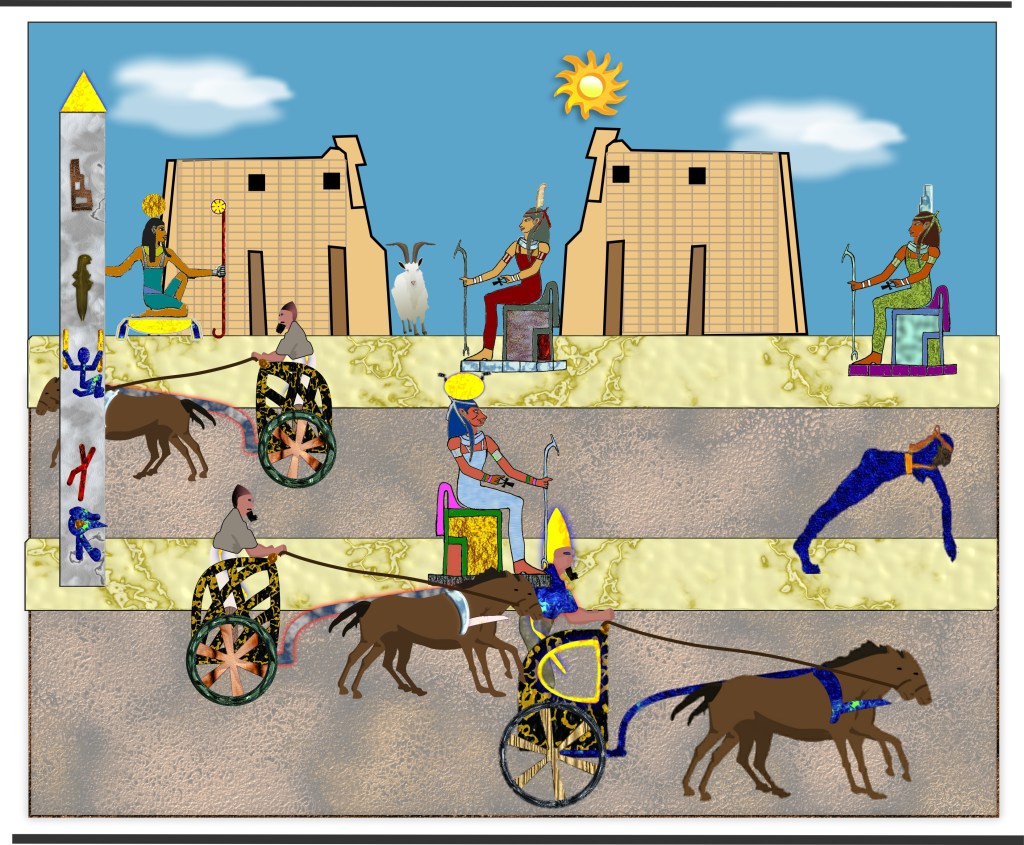
Horses, Gods and Scribes
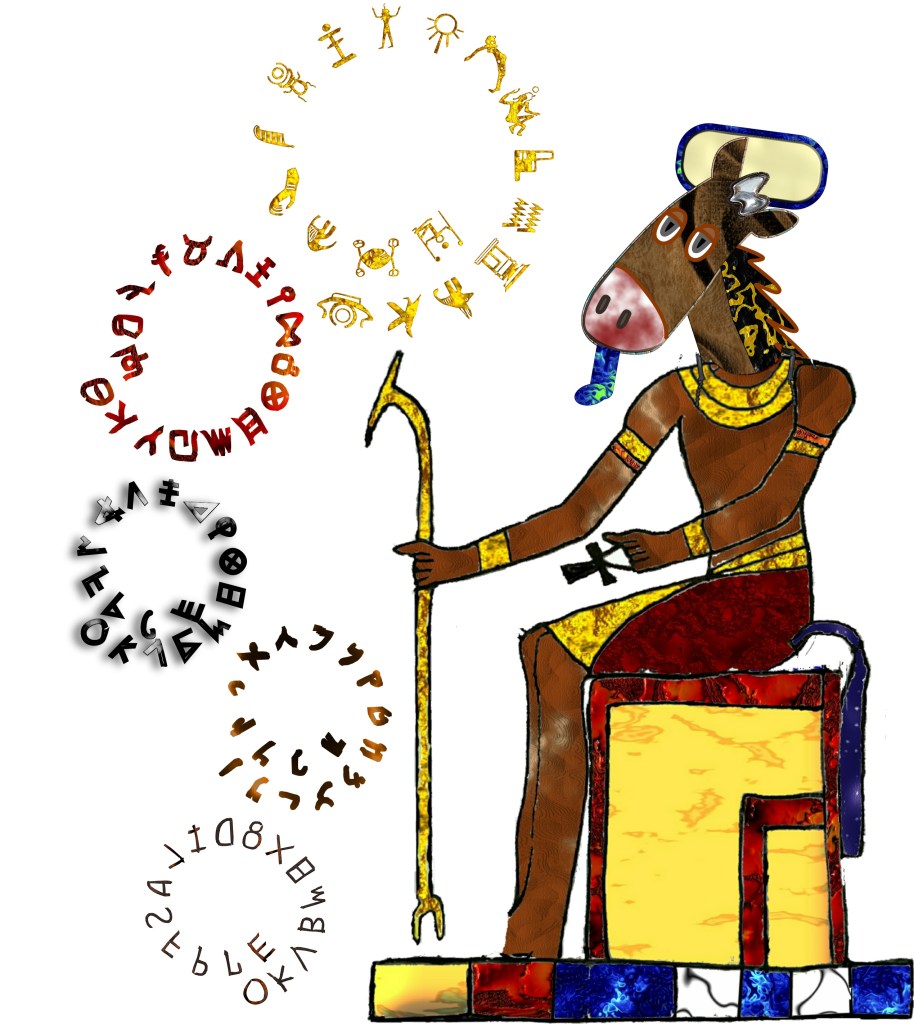
More than 3 billions contemporary human beings write with alphabets coming from a single origin. And to find it, you must dive into the heart of the history of horseback riding!
We investigated the astonishing relationship between the alphabet and the equestrian arena, this familiar and yet non explicit tool, illustrated with letters.
To understand the mystery, we must go back to the sources of writing, find the meanings, the original symbols, and determine which people, what political will, and what intentions presided over this double invention.
Whether you practice horseback riding or not, an essential and fascinating series of letters intrigues us. We go beyond them by reading them automatically, without perceiving their perfect positions, without dwelling on their real meanings.
In one sense, AFPBRMCGIDLDKVESH, or in another, ADLXIGCFMRBPFHSEVK and AFDKVLPBXE-SIRMGHC if you want to zig-zag, these 17 letters adorn the moments of all the efforts that lead to horseback riding: the equestrian arenas.
Together with carousels and quarries, they form the high places of learning where humans communicate with horses in the hope that by dint of training, understanding and loving patience, the actions of some will be trans-formed into reactions on the part of others and vice versa.
The ridding arena is well known, but like a mysterious cassette or a mythical set, this device remains strange in its form as well as in its décor. He does not speak to us, he writes to us, awakening a curiosity eager for answers to our questions:
Who wrote this? At what point of History? To tell us what? Why did they do it this way? To meet what needs?
And finally, where ?
Bonus: How did it get to us?
Of course, the explanations found must be complete and as credible as possible in the presentation of the combination of their motivations. Our quest is twofold since it scrutinizes the intertwined histories of horseback riding and writing.